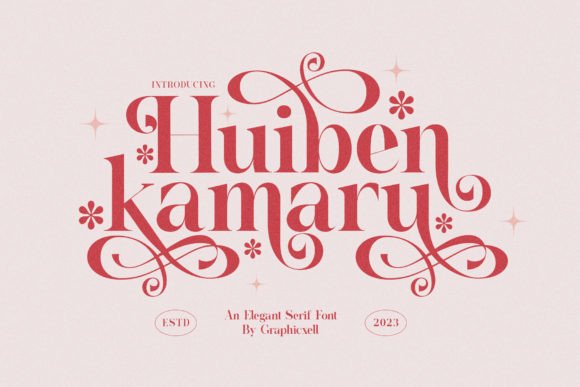
Hubein Kamaru is an elegant serif typeface combined with a classy and modern style. This type of font is very suitable for your various needs such as branding projects, logos, wedding designs, social media posts, advertisements, product packaging, product designs, labels, photography, watermarks, invitations, stationery, and any project, created with high level of readability.